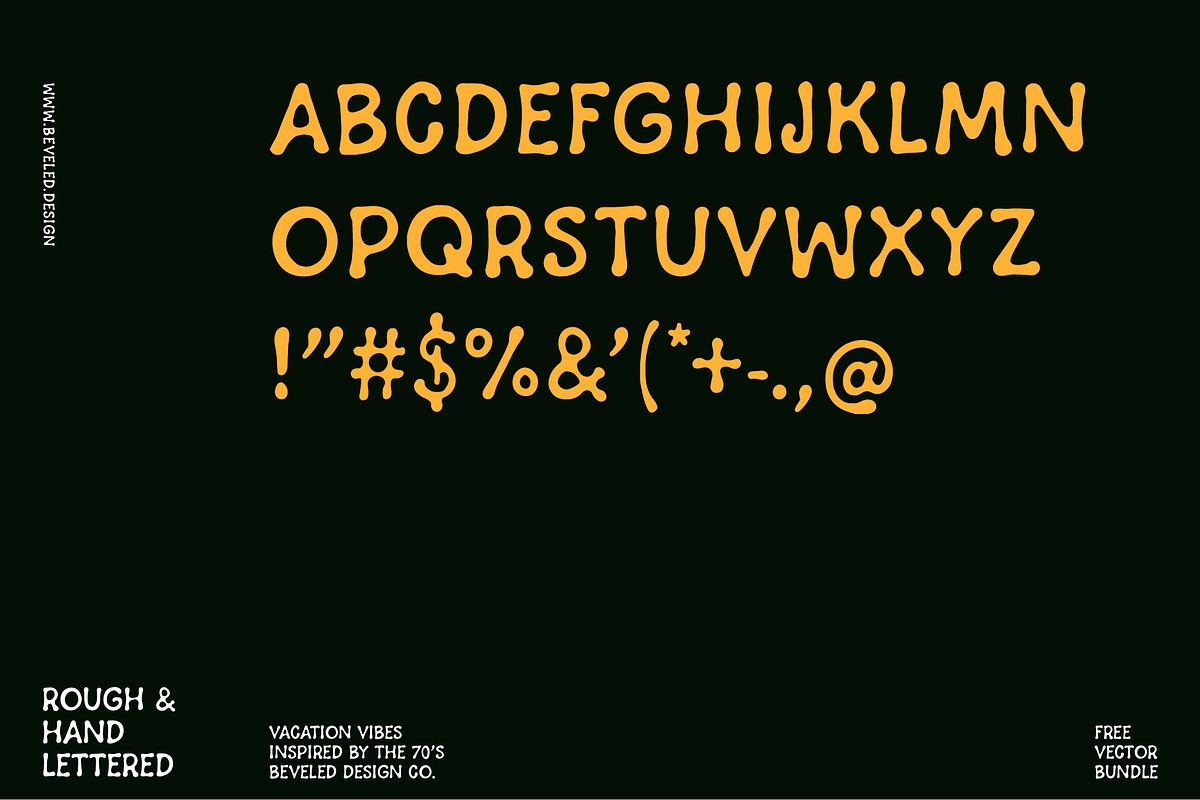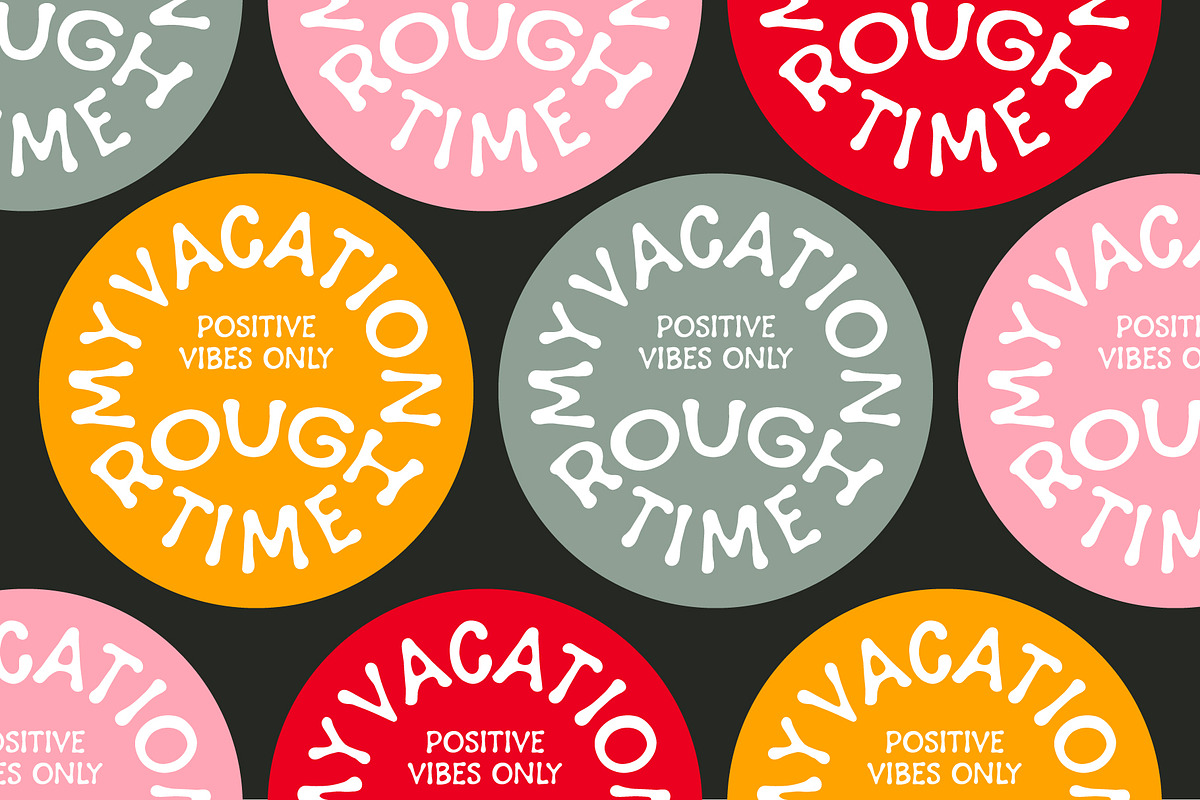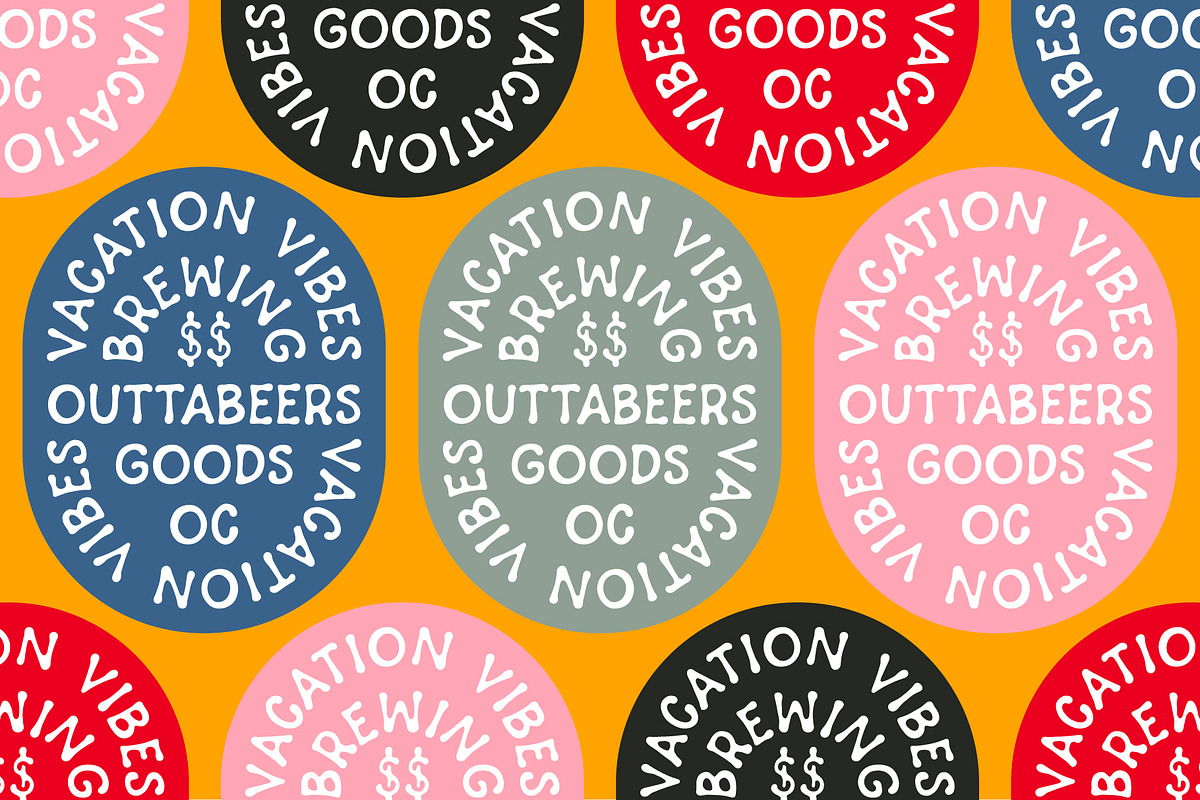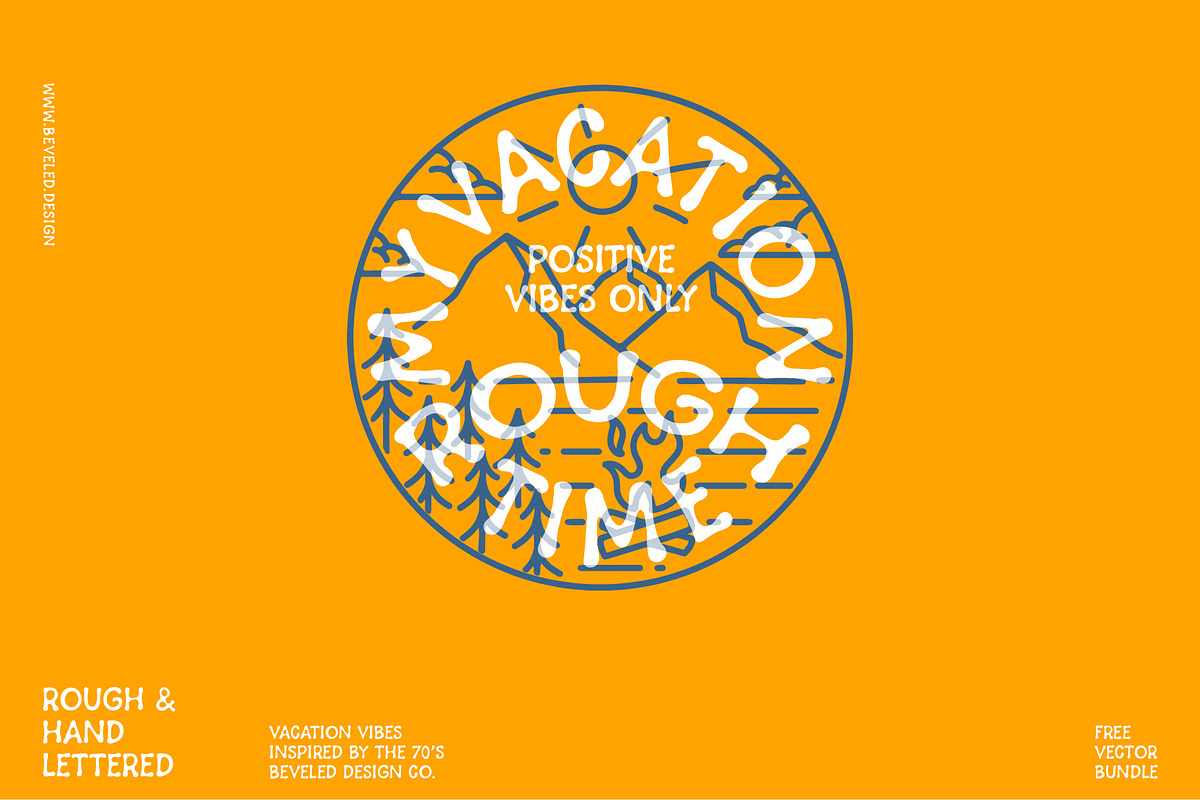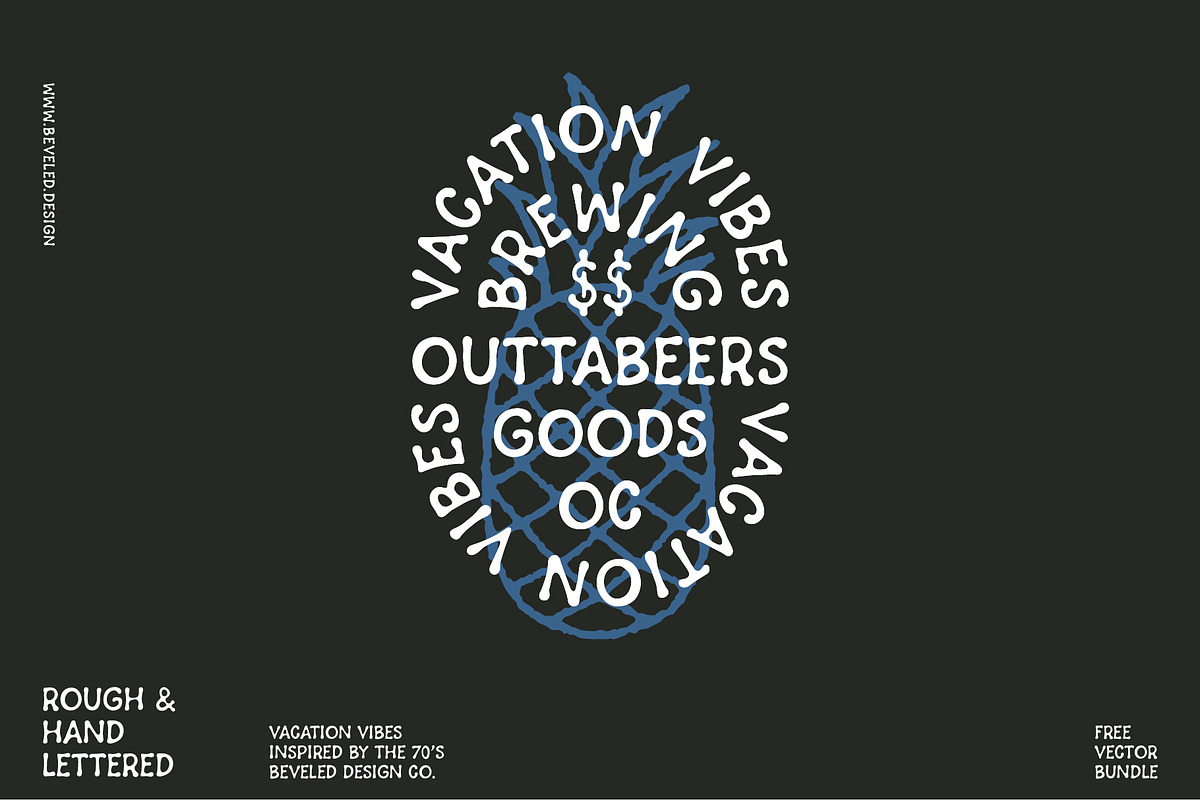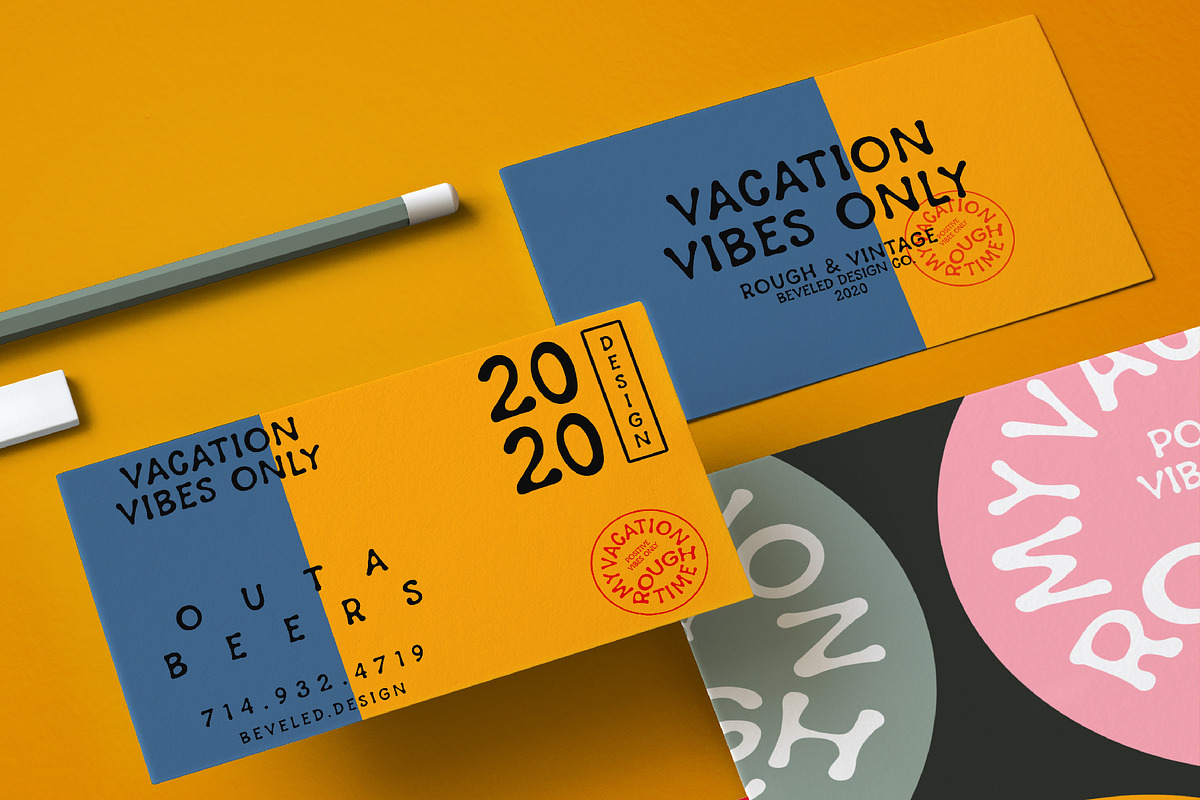
Vacation Vibes | Vintage Handwritten
–– Vintage - Bold - Handwritten ––
Vacation Vibes is a strong and vintage san serif font. Inspired by the 70’s and the smooth aesthetic of gel pens, it’s fluid and nostalgic style is felt through the hand drawn letterforms and blotted ends. A contrast of bold ends and smooth curves can be seen through this typeface. Each letter can stand as its own as a piece of art, dynamic and organic in their own right.
Function
Vacation Vibes works great in any branding, identity or digital projects. The utilitarian form of this typeface gives it flexibility to exist within any market.